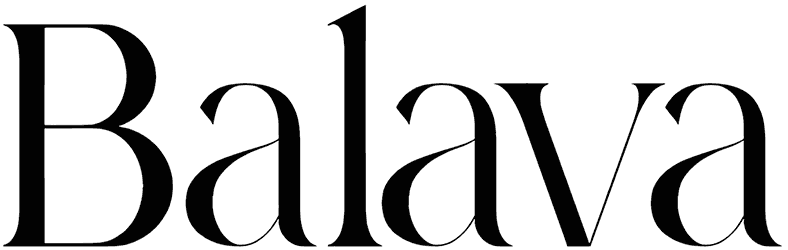
Balava Font
Most of the time, your design will look professional enough if you use an elegant serif font to adorn your text, and this item is one of them. Even without numbers and punctuation marks, the Balava font could be used for many projects and make them timeless. Set it in your new design of a fashion magazine and be salient.